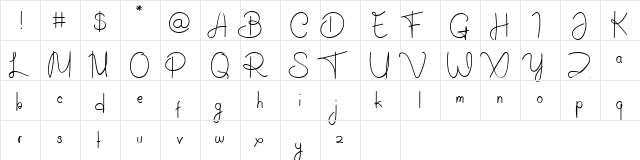
The Symphony! Regular
Design Context for The Symphony! Typeface
The Symphony! is a composed and adaptable typeface that performs quietly and consistently across a wide range of design contexts.